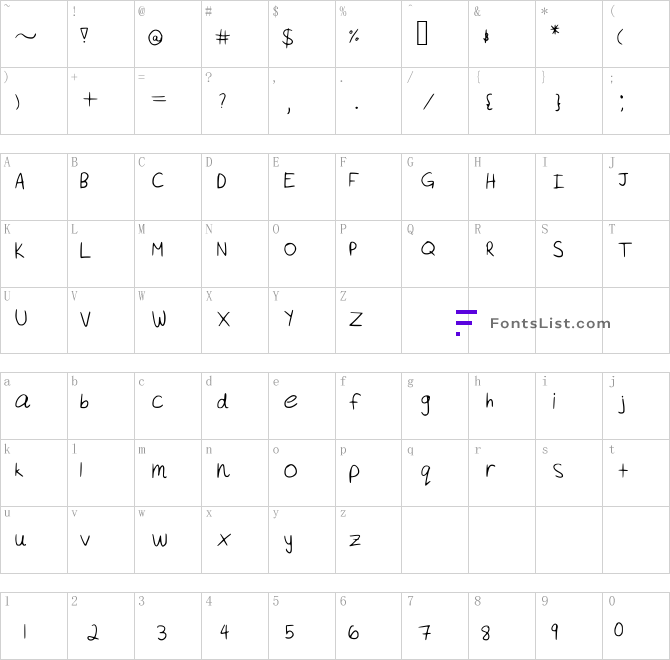
- Font Name:Akeylah__s_Handwriting
Akeylah__s_Handwriting.ttf is a very beautiful artistic font, Akeylah__s_Handwriting.ttf is widely used in the design and printing of various books and pictures,Akeylah__s_Handwriting.ttf has a strong visual impact,Akeylah__s_Handwriting.ttf is a commonly used font in newspapers, magazines and books, and is used in posters, e-commerce Poster design, store design, logo design, font design and other fields.Akeylah__s_Handwriting.